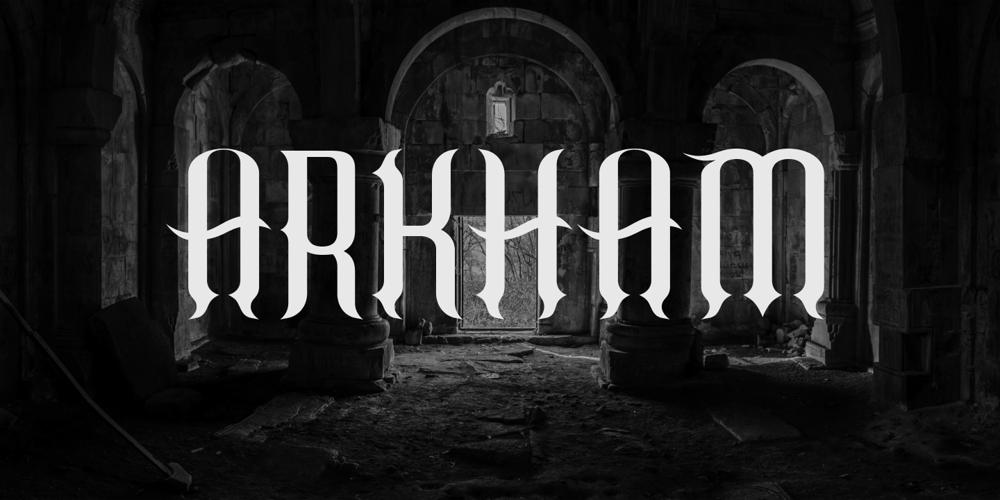
Arkham Font Family was designed by Eugene Bunin and published by Harvester Type. Arkham contains 1 styles and family package options. Arkham – a font that was created from the title of the cover of the comic book “Batman Absolution”. The font conveys the Gothic and darkness that is inherent in this comic.The font is perfect for headlines, texts, posters, covers, merch, prints and more. Great language support.If you find an error in the font or kerning, write to: bunineugene@gmail.com, for a quick fix!